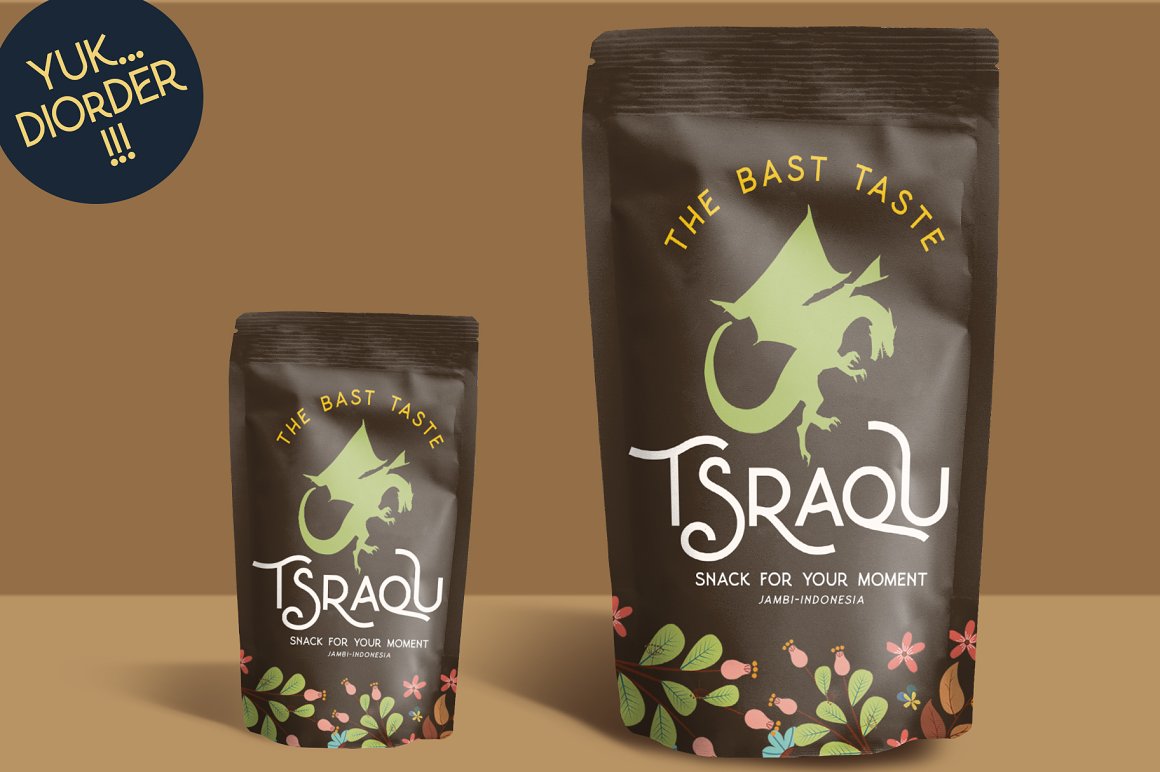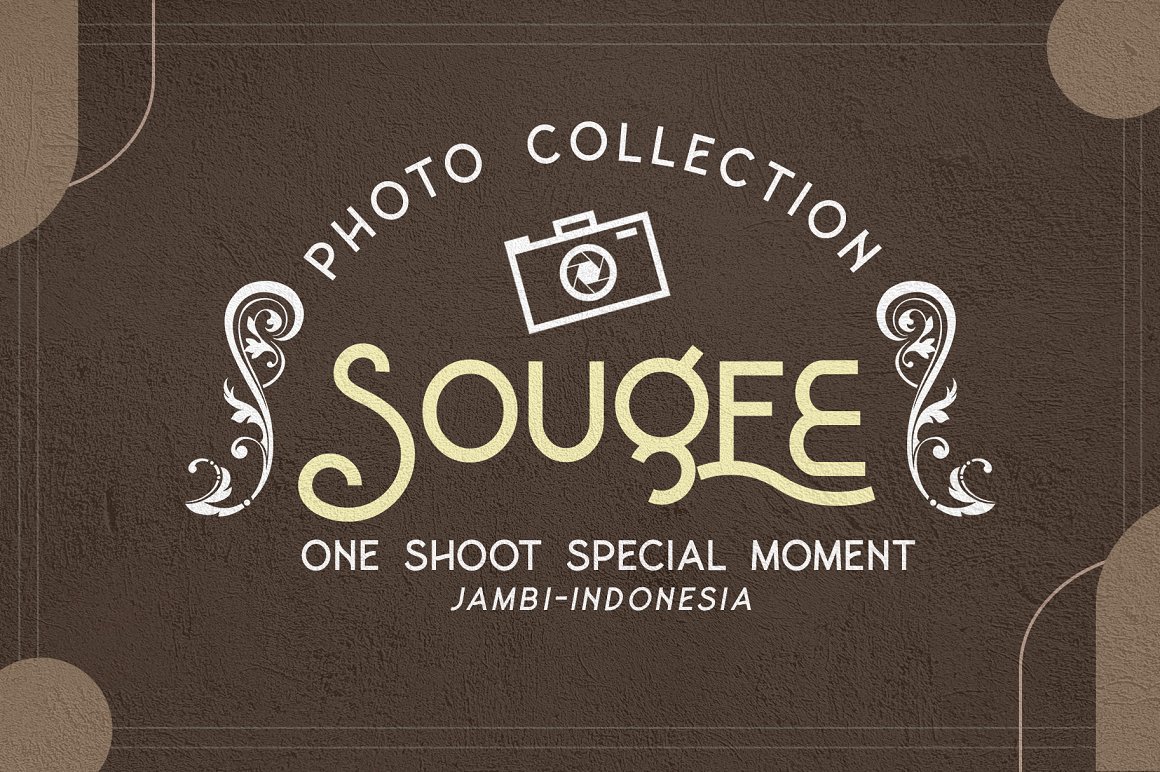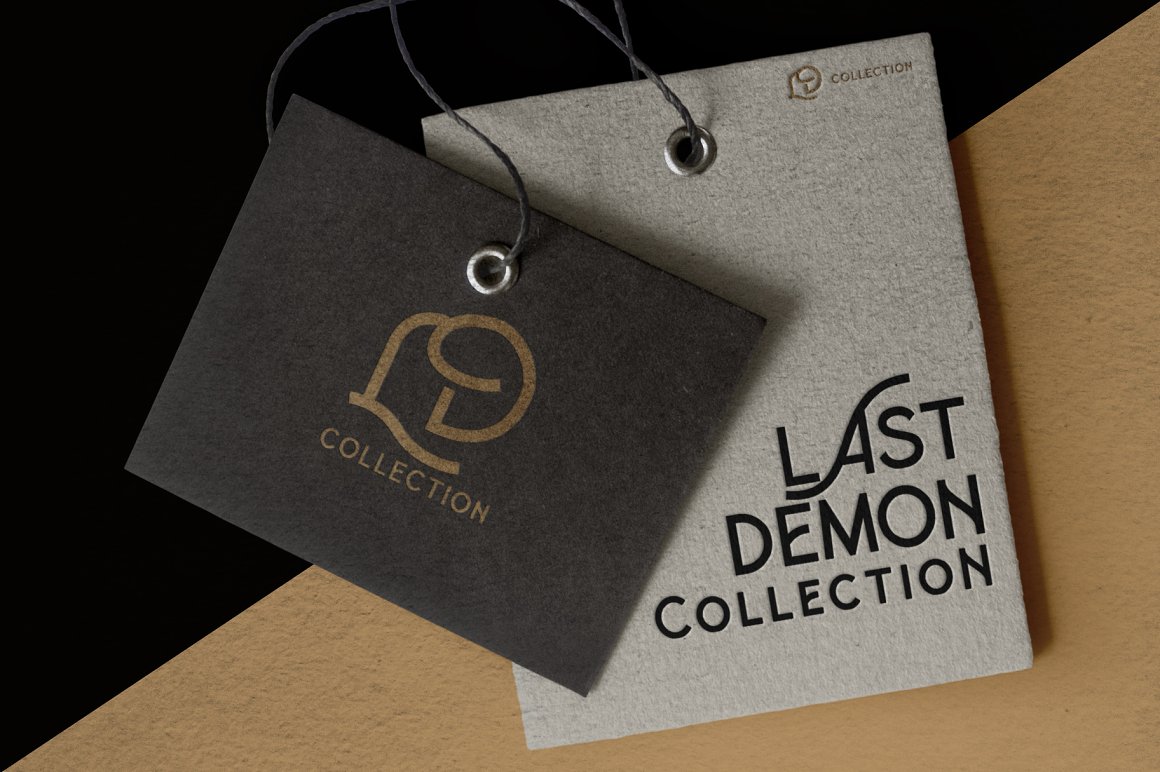
Hoogy Sans Serif Font
This is a cool and modern sans serif font. It is PUA encoded which means you can access all glyphs and swashes with ease! Use this font for your designs and explore its endless possibilities.